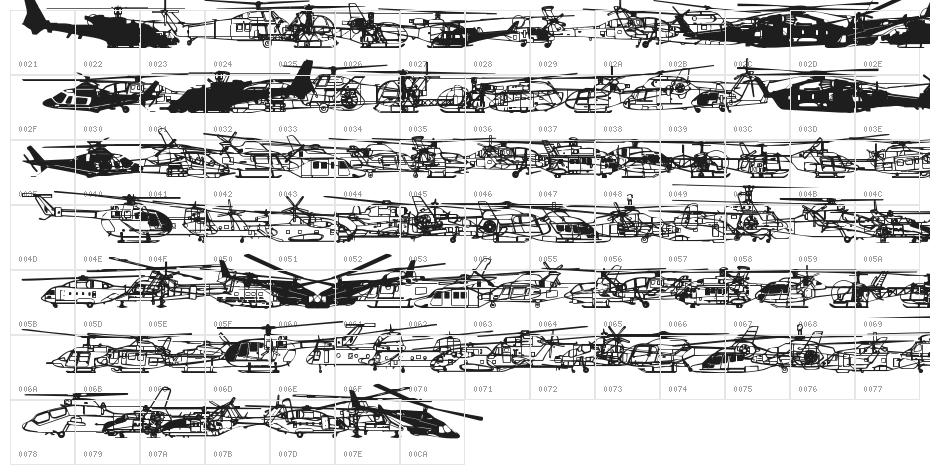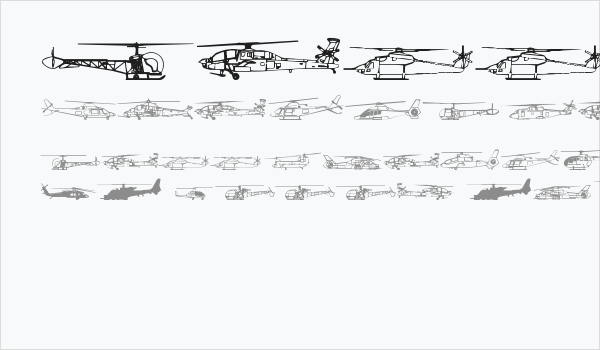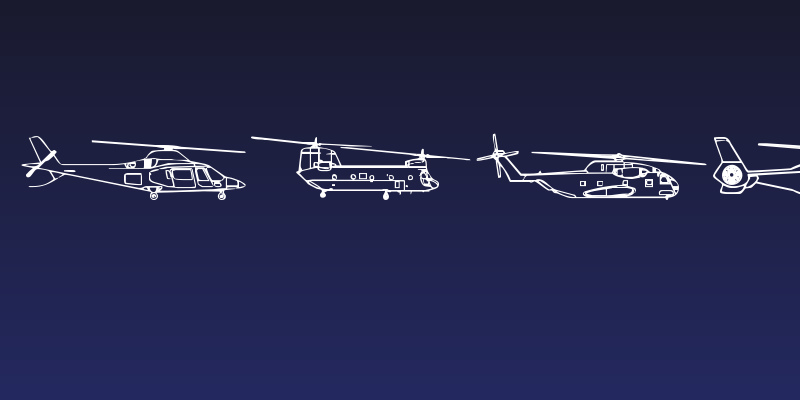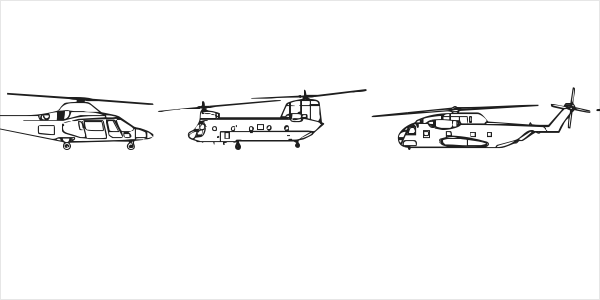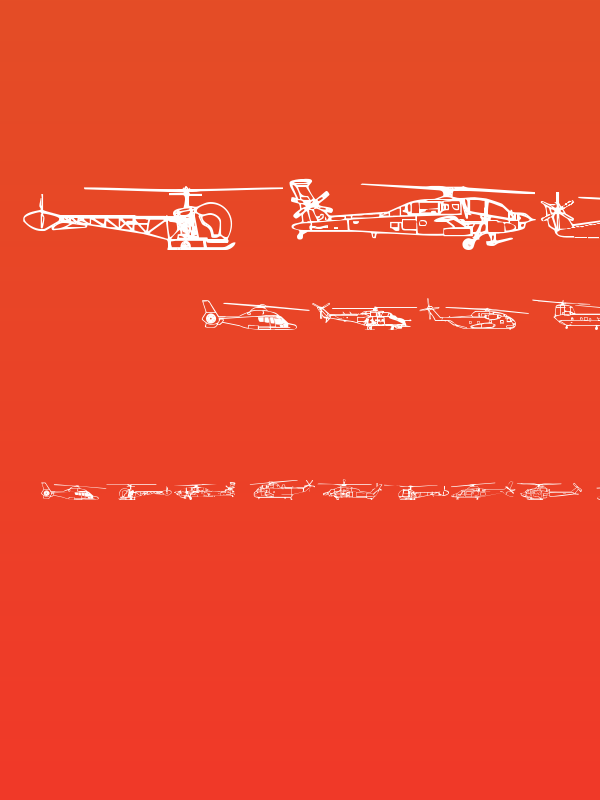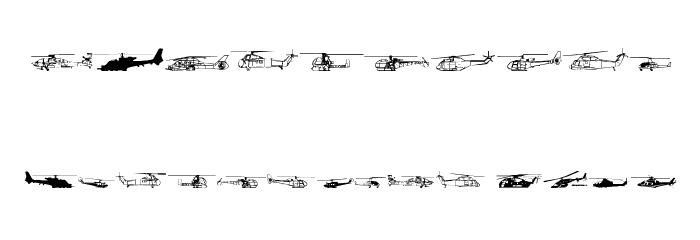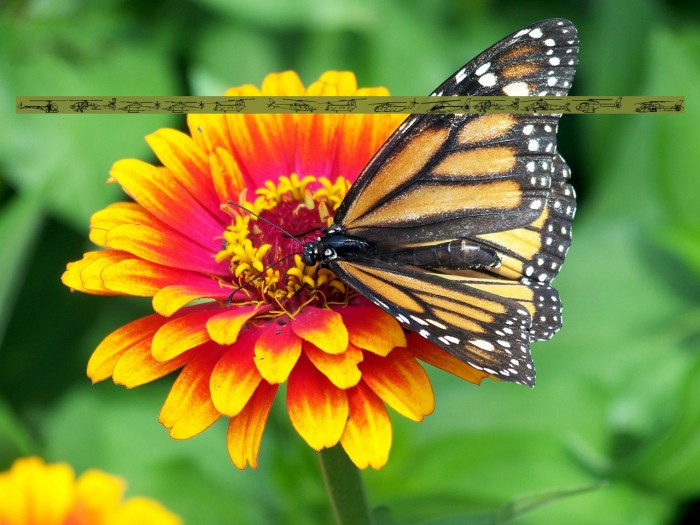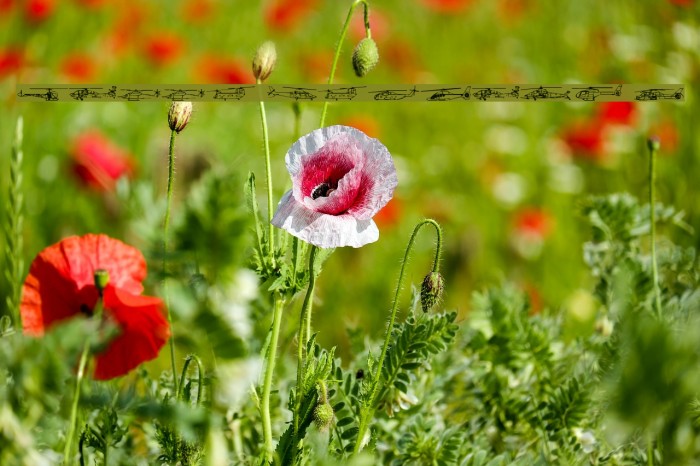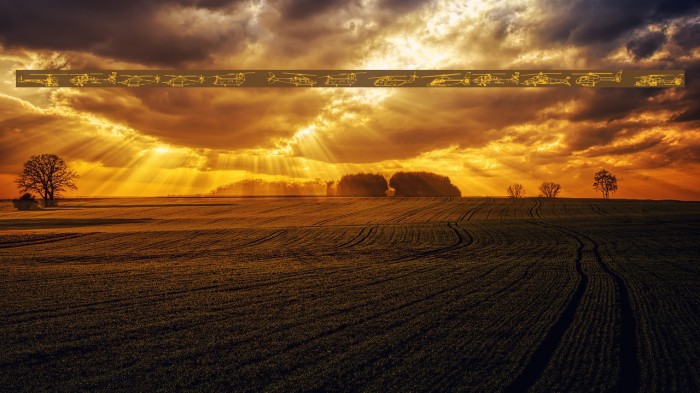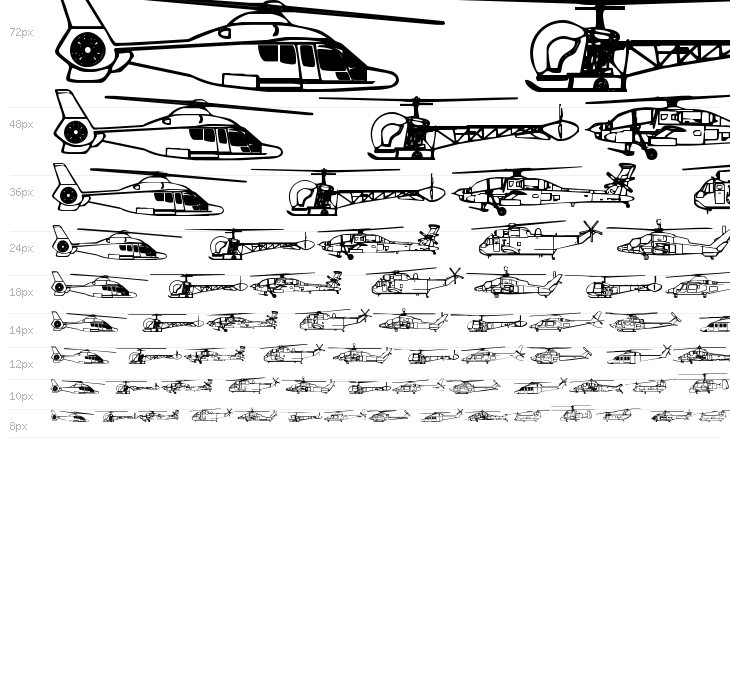
Hello Copters 2 Font
Hello Copters 2 Description
A decorative dingbat font featuring detailed line art illustrations of various helicopter models, each character representing a different helicopter design in a consistent side profile view.
| Overall Style | Decorative, Technical |
| Use Case | Icons, Themed graphics, Educational diagrams |
| Proposed Projects | Aviation posters, educational materials, themed party invitations, model kit packaging, and graphic design projects related to helicopters or aviation. |